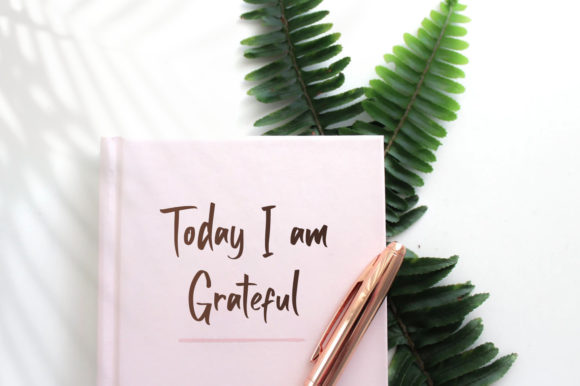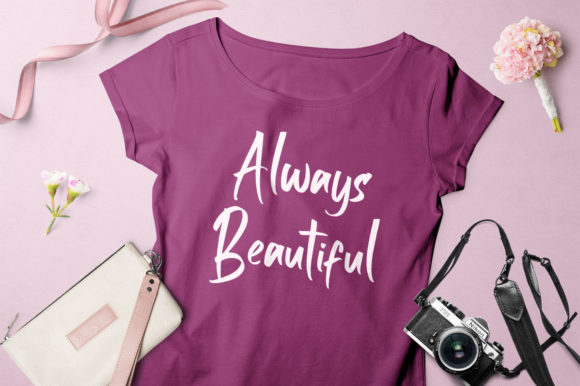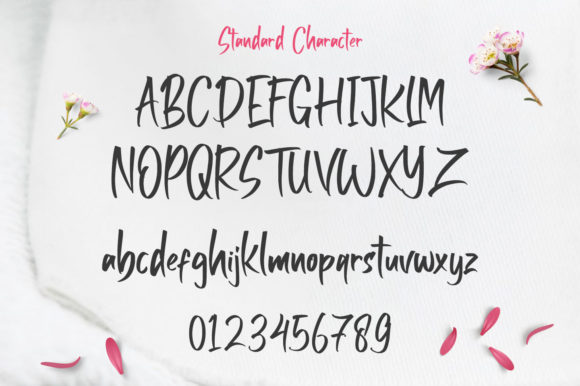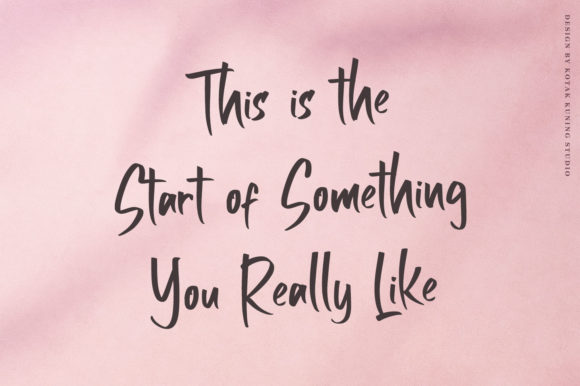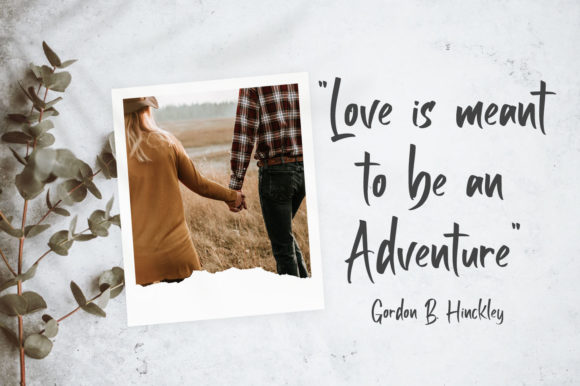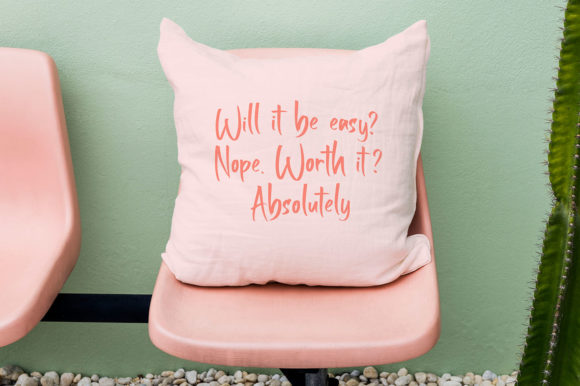
Introduction to Lovelyn Robertine Font
Lovelyn Robertine is a cute handwritten font.
It features an incredibly classic style, while still keeping a friendly feel Lovelyn Robertine is the perfect font for making original and outstanding designs.